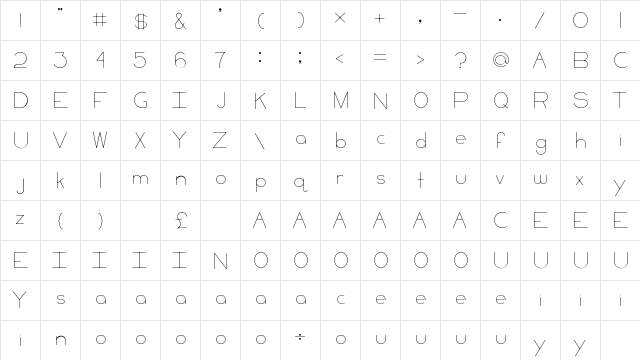
CC Keni Regular
| Designer | Chris Campbell |
Design Context for CC Keni Typeface
CC Keni is a composed and adaptable typeface that performs quietly and consistently across a wide range of design contexts.